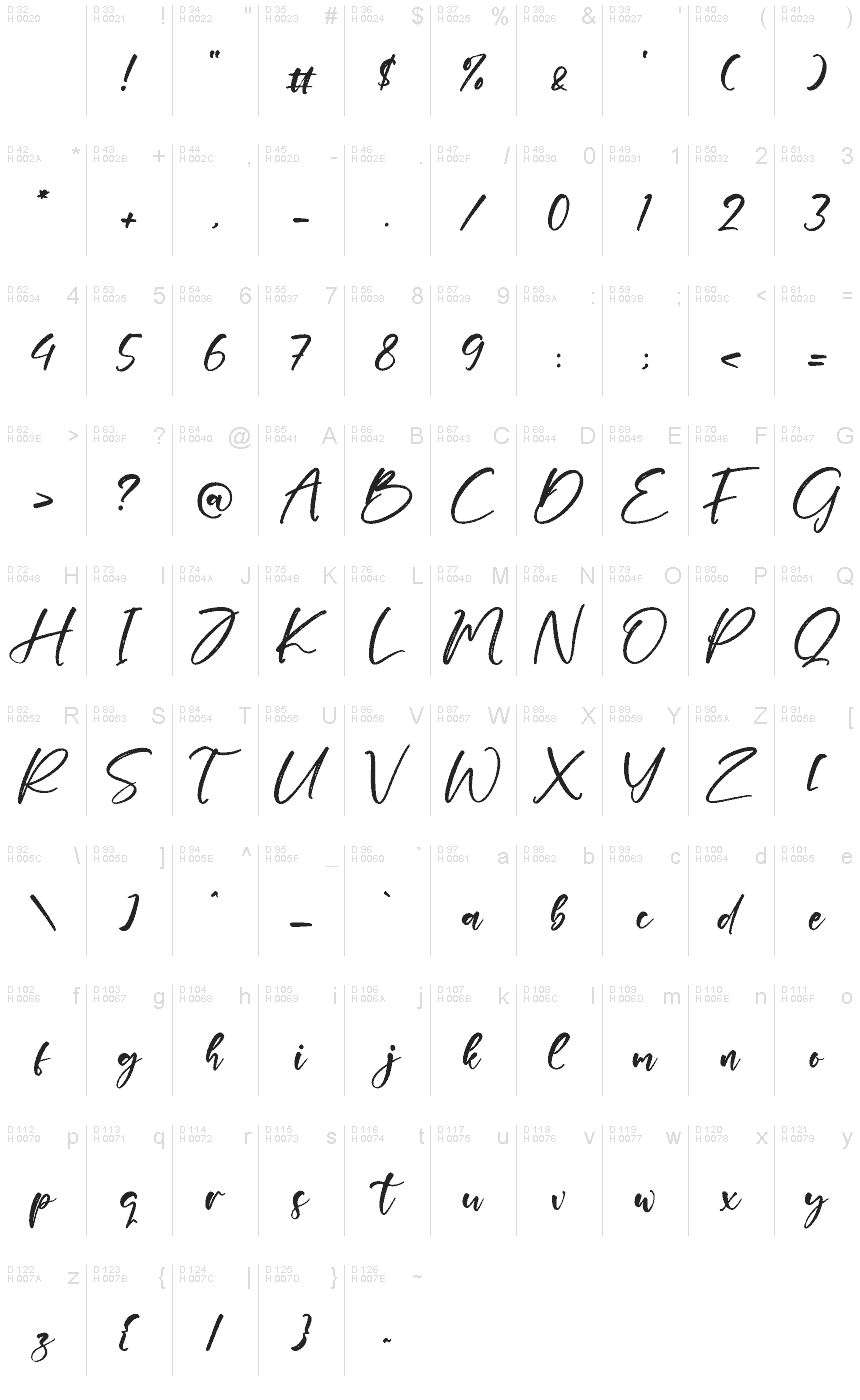
Zenittash
Zenittash font by Letterena Studios is a light handwritten font with an expressive and flowing style. Its elegant strokes evoke sophistication and creativity, blending a modern script style with artistic flair. This free handwritten font offers versatility and charm, making it perfect for both personal and professional projects.